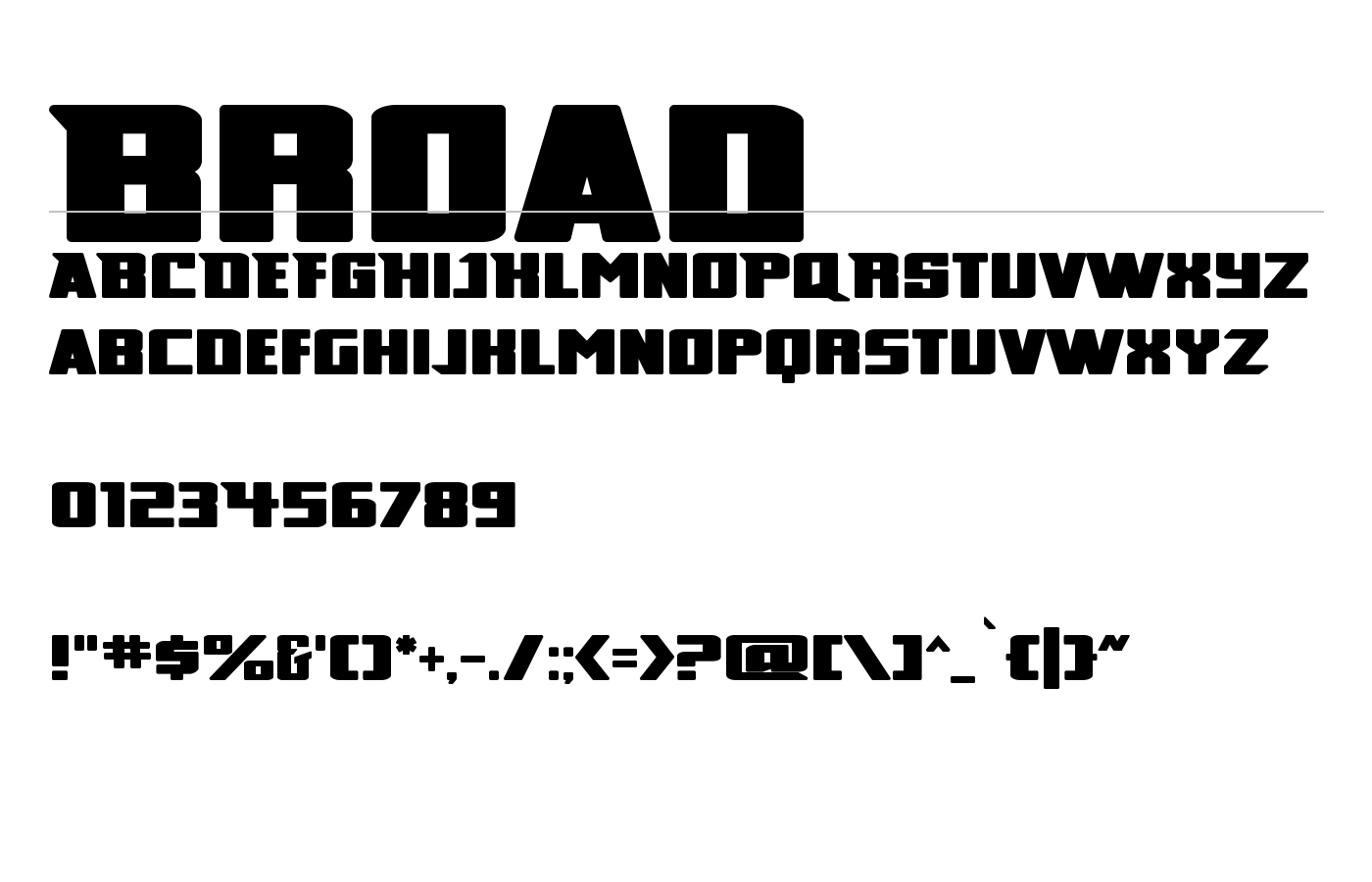
Broad Font is a bold, blocky sans serif typeface with a strong, industrial character and high visual impact. Its heavy weight, squared shapes, and minimal contrast give it a sturdy and modern feel, making it ideal for headlines, logos, and branding that require a commanding presence. This font works well in contexts that call for a powerful, confident style, such as posters, signage, and edgy editorial designs.
Broad Font
About Broad Font
| Font family | Broad Font |
| Designer | Apostrophe |